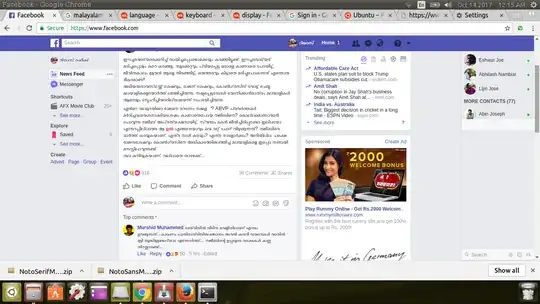
Particularly in Facebook and Gmail, Malayalam fonts are tiny and not readable.
Also, combination of letters is not working.
What can I do about this?
I assume this is an issue with the default font used to render malayalam, 'Meera' in my case. You can check with LANG=ml_IN fc-match in the terminal. To change the default font used system-wide:
I used 'Noto Sans Malayalam' and 'rachana' here, replace it with a font you like.
How i fixed this in Firefox only: Preferences > Fonts & Colors > Set default font as 'Noto Sans Malayalam' (This one increased the font size in my case; Tested on Facebook and YouTube comments).
I tried to change the fonts in chrome settings to various malayalam language options available there. And some fonts (Anjaliold, Lohit etc..) solved the problem for me in Chrome in Ubuntu 18.04. Now the malayalam and english letters are looking almost same font size in websites like youtube etc.